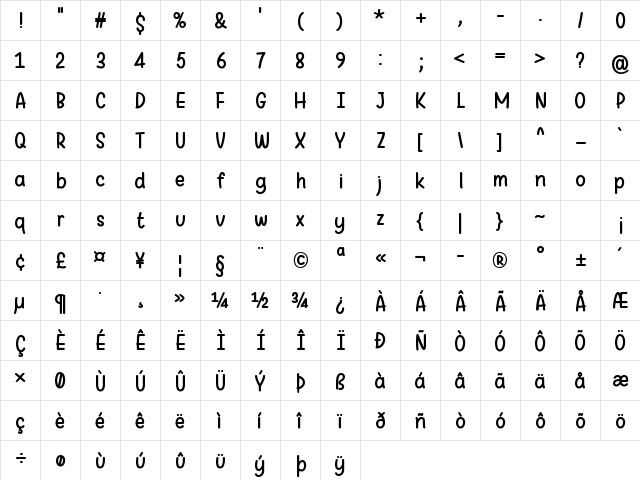
Warung Kopi Regular
| Foundry | 7NTypes |
| Designer | Situjuh Nazara |
Design Context for Warung Kopi Typeface
Warung Kopi takes a measured approach to typography — its balanced proportions and neutral character make it a reliable workhorse for both digital and print work.